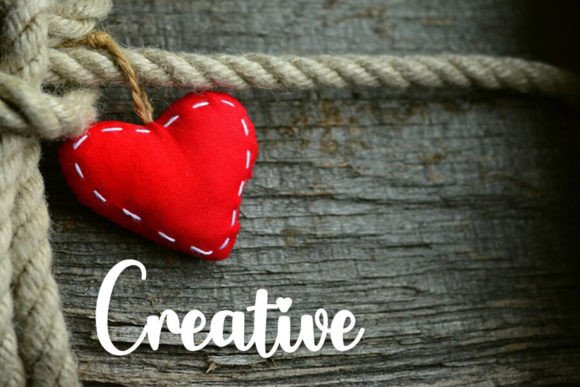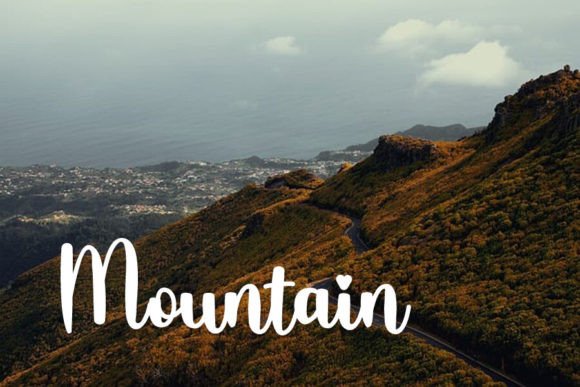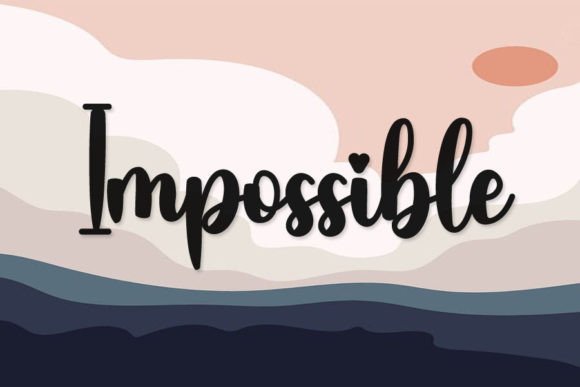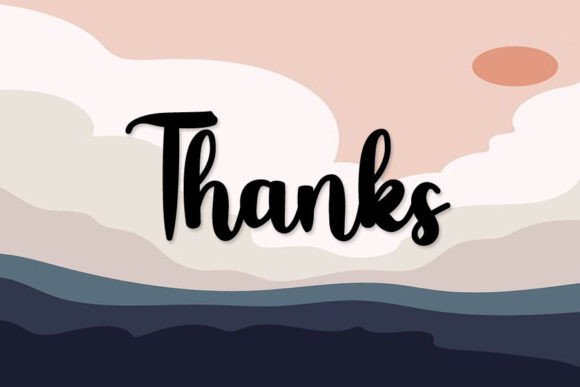
Introducing Heart Font: Elevate Your Designs with Elegance and Sophistication
Are you tired of using the same old fonts in your designs? Do you want to add a touch of elegance and sophistication to your projects? Look no further than Heart Font, a beautiful handwritten font that is sure to capture your heart. With its flowing lines, varied baselines, and stunning alternates, Heart Font is the perfect choice for designers and crafters looking to take their work to the next level.
A Classy Calligraphic Influence
Heart Font boasts a classy calligraphic influence that is reminiscent of traditional handwriting. Its smooth lines and beautiful glyphs give it a sophisticated feel that is perfect for a variety of design projects, from wedding invitations and branding materials to packaging and advertising. The font’s elegant appearance is sure to impress your clients and elevate your designs to new heights.
What Sets Heart Font Apart
So, what makes Heart Font so special? Here are just a few features that set it apart from other fonts:
- Varied Baselines: Heart Font features varied baselines that give it a natural, handwritten feel. This means that no two letters are exactly alike, adding a touch of uniqueness to your designs.
- Smooth Lines: The font’s smooth lines and curves create a beautiful, flowing appearance that is easy on the eyes.
- Beautiful Glyphs: Heart Font includes a range of beautiful glyphs, including alternate letters, numbers, and punctuation marks.
- Stunning Alternates: The font comes with a range of stunning alternates, allowing you to mix and match letters to create a truly unique look.
Heart Font is perfect for designers and crafters who want to add a touch of elegance and sophistication to their projects. Whether you’re working on a wedding invitation, a branding campaign, or a craft project, this font is sure to impress. Its versatility and range make it suitable for a wide range of design applications, from digital projects to print materials.
Take Your Projects to the Highest Level
With Heart Font, you can take your projects to the highest level. Its elegant appearance and sophisticated feel make it perfect for high-end designs, while its versatility and range make it suitable for a wide range of applications. Whether you’re a professional designer or a crafty DIY enthusiast, Heart Font is sure to become a favorite in your collection.
Why Choose Heart Font?
So, why choose Heart Font over other fonts? Here are just a few reasons:
- Unique and Elegant: Heart Font is a unique and elegant font that will set your designs apart from the crowd.
- Versatile: The font is versatile and can be used for a wide range of design applications.
- High-Quality: Heart Font is a high-quality font that is designed to deliver exceptional results.
- Easy to Use: The font is easy to use and comes with a range of features, including a user-friendly interface and detailed documentation.
In conclusion, Heart Font is a beautiful and elegant handwritten font that is perfect for designers and crafters looking to add a touch of sophistication to their projects. With its flowing lines, varied baselines, and stunning alternates, this font is sure to capture your heart. Whether you’re working on a wedding invitation, a branding campaign, or a craft project, Heart Font is the perfect choice. So why wait? Fall in love with Heart Font today and take your designs to the highest level!
- Elegant and flowing handwritten font
- Varied baselines and smooth lines
- Beautiful glyphs and stunning alternates
- Classy calligraphic influence
- Perfect for designers and crafters
- Suitable for a wide range of design applications